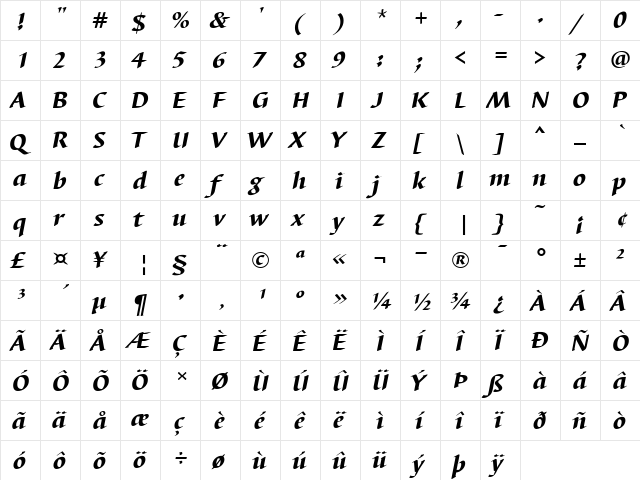
Barbedor T Italic
Design Context for Barbedor T Typeface
Barbedor T takes a measured approach to typography — its balanced proportions and neutral character make it a reliable workhorse for both digital and print work. The slanted form adds forward momentum and visual energy.
Pro Tip: Try Barbedor T for annotation and caption copy alongside an upright companion — the contrast in angle creates a dynamic but ordered typographic system.